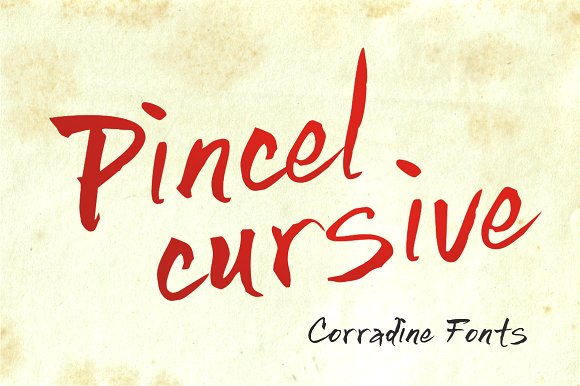
Welcome to the world of Pincel Family Font, a breathtaking script font collection that sparks your creativity like never before!
Embark on a typographic journey where every letter dances with elegance, capturing hearts and imaginations with its unique charm. Pincel's flowing strokes and graceful curves evoke a sense of sophistication and artistry, leaving an unforgettable impression wherever it appears.
Express your individuality with Pincel's versatility. Whether you're crafting captivating headlines that demand attention, designing book covers that whisper stories, or creating posters that burst with energy, Pincel is your perfect companion. Its adaptability knows no bounds, making it the ultimate choice for invitations that exude warmth and personality, and any project that calls for a touch of timeless beauty.
Dive into the depths of Pincel's allure and discover the endless possibilities it holds. Its timeless aura adds a touch of elegance to your designs, while its modern twist ensures it remains relevant and captivating. It's a font family that transcends time, effortlessly blending the classic with the contemporary.
Join the creative revolution and embrace Pincel's enchanting embrace. Let your imagination soar as you explore the realm of visual storytelling. With Pincel as your creative ally, you'll leave an indelible mark on the world, one design at a time.
Unleash the power of Pincel today and transform your creative vision into a captivating reality. Step into the spotlight and let your designs shine brighter than ever before.